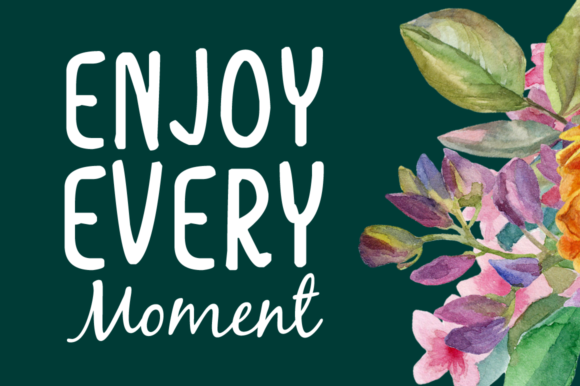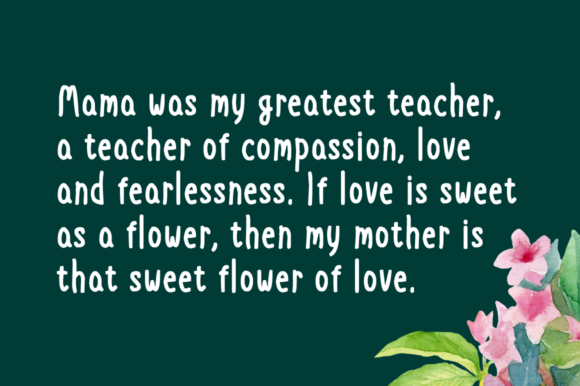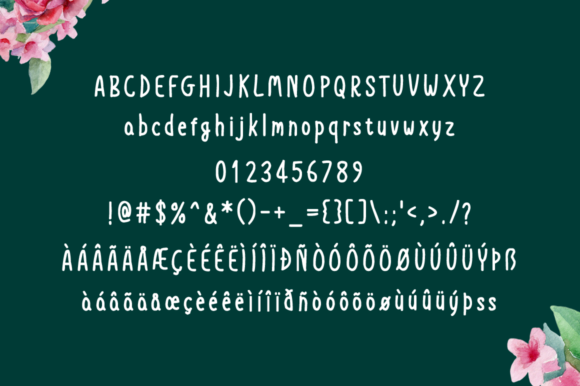
Introduction to Crazy Beautiful Font
As a designer, have you ever been stuck in a creative rut, searching for the perfect font to bring your vision to life? I know I have. One day, while working on a project, I stumbled upon the Crazy Beautiful Font, and it was love at first sight. The unique, handwritten style and high-quality design made my heart skip a beat. I knew right then and there that I had to share this incredible design resource with the world.
The Crazy Beautiful Font is a game-changer for any creative project, offering a level of sophistication and elegance that’s hard to find in other fonts. With its transparent background and versatility, it’s perfect for everything from stationery to website headers, and even music covers. Whether you’re a seasoned designer or just starting out, this font is sure to be a valuable addition to your design arsenal.
Key Features of Crazy Beautiful Font
- Unique Hand-Drawn Design: The Crazy Beautiful Font boasts a distinctive, hand-drawn aesthetic, making it perfect for creative projects that require a personal touch.
- Transparent Background: The transparent background of the Crazy Beautiful Font makes it easy to place over any image or design, allowing for maximum flexibility in your creative project.
- Perfect for Design Projects: The Crazy Beautiful Font is ideal for use in various creative projects, such as branding, logos, posters, and social media graphics, thanks to its high-quality design and versatility.
Honest Review: Crazy Beautiful Font
I recently stumbled upon the Crazy Beautiful Font and I’m excited to share my thoughts on this design resource. With a growing collection of high-quality fonts, this free download has caught my attention, especially for creative projects that require a unique touch.
Here’s what works well: ✨ The font is incredibly versatile and can be used in various contexts, from logos to headings. The font’s design is bold and eye-catching, making it perfect for grabbing attention. I also appreciate the transparent background, which allows for easy color customization.
However, I did encounter some limitations: ⚠️ The font’s weight is a bit inconsistent, and some letters appear to be slightly thicker than others. Additionally, the font’s x-height could be improved for better readability.
Overall, I think the Crazy Beautiful Font is a great addition to any designer’s toolkit. While it’s not perfect, its unique design and free download make it a valuable resource for creative projects. I’d recommend it to anyone looking for a bold, eye-catching font.
Pros:
- Perfect for logos and headings
Cons:
- Weight inconsistency
- Improved x-height needed
Crazy Beautiful Font
Use the Crazy Beautiful Font on a transparent background to create a stunning visual effect. Experiment with different font sizes and colors to add depth and interest to your design.
The Crazy Beautiful Font is perfect for wedding invitations, social media graphics, and branding materials. It’s also great for creating eye-catching headings and titles for your creative projects.